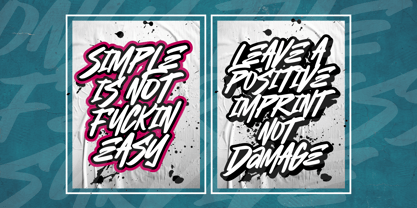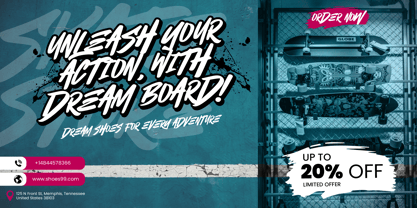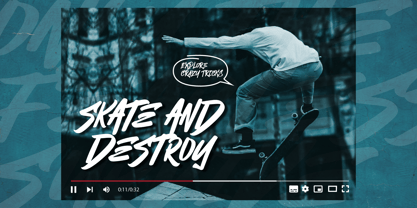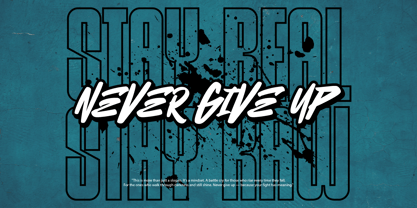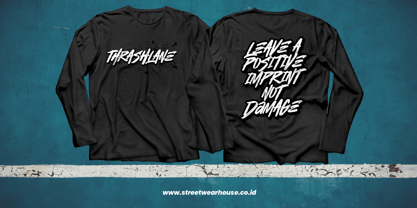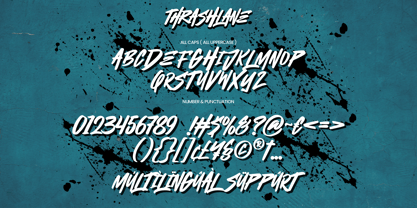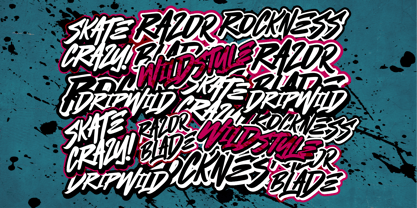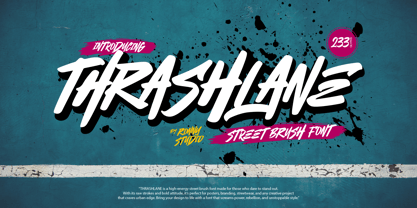
Thrashlane
by Ronny Studio
The Thrashlane Font Family was designed by Rony Rizki Jaya and published by Ronny Studio. Thrashlane contains 1 styles.
Introducing: Thrashlane – Street Brush Font
Unleash the energy of rebellion and street spirit with Thrashlane, a powerful brush typeface inspired by skate culture, graffiti tags, and underground movement. Every stroke is raw, loud, and unapologetically bold—perfect for creators who design without limits.
Whether you're crafting apparel designs, album covers, posters, or action-themed branding, Thrashlane brings that unfiltered attitude that hits hard and stands tall.